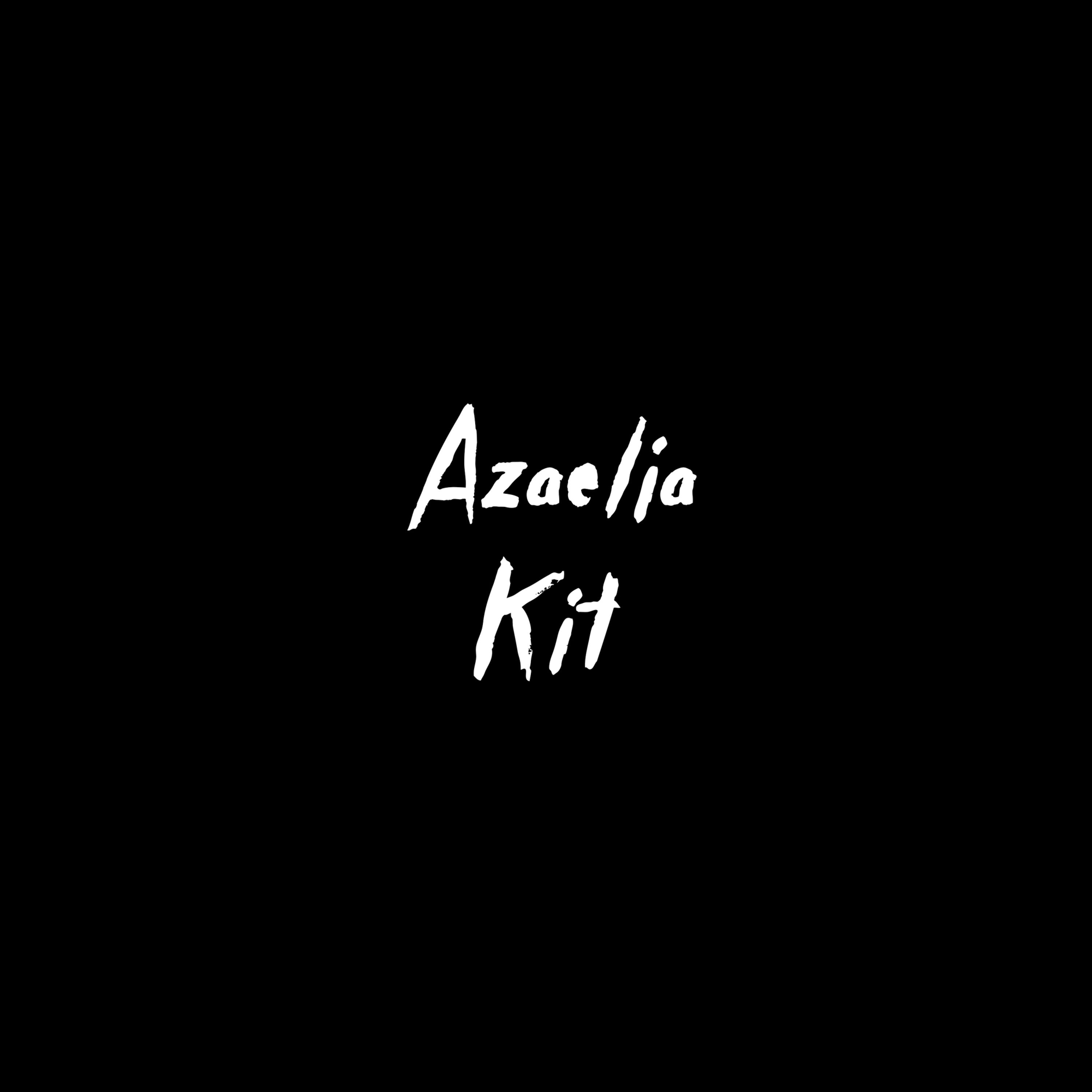
AZAELIA FONT KIT includes 1 Font and 2 Art Fonts/Vector Artwork (AI) File.
Azaelia Font
Azaelia Frames Font/Vector Art
Azaelia Ornaments Font/Vector Art
Azaelia fonts hand-painted brush fonts with Latin Pro Characters. Use Azaelia fonts for marketing, books, websites, magazines, film and television.
Azaelia Frames artwork are a fun hand-painted frames and borders. Files include one Frames Art font file (OTF/TTF) and one Vector Art (AI) files.
Azaelia Ornaments artwork are a fun hand-painted flourishes and ornaments. Files include one Frames Art font file (OTF/TTF) and one Vector Art (AI) files.
Azaelia Font Kit